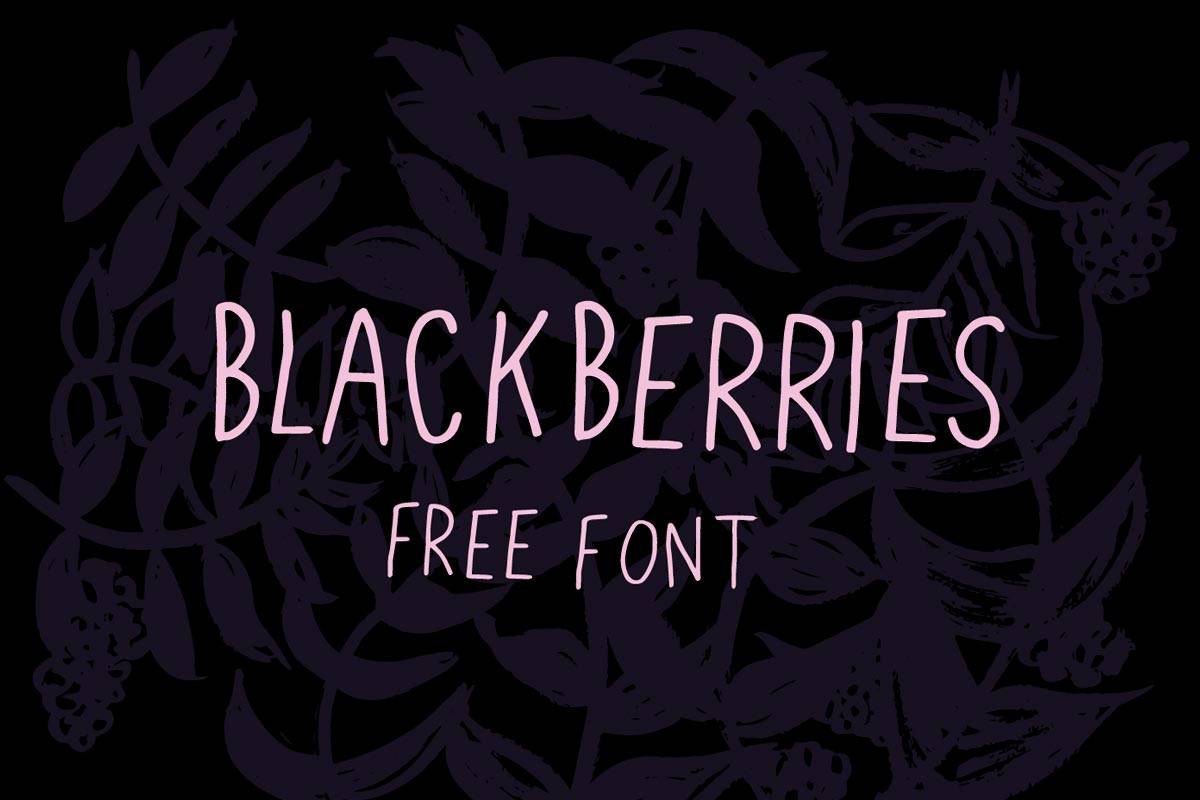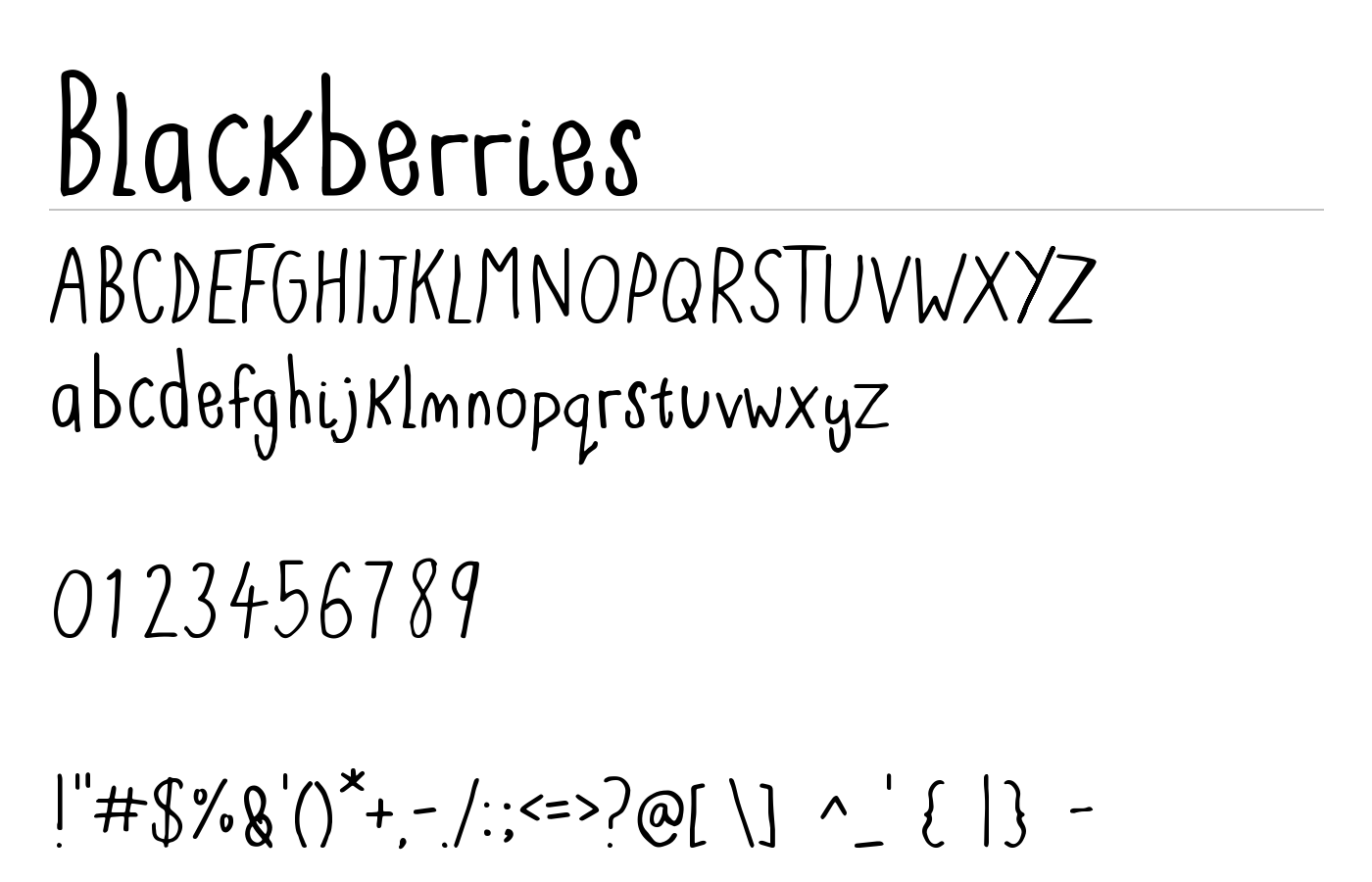
Blackberries is a playful and informal handwritten sans serif font with tall, narrow letterforms and a casual, slightly quirky charm. Its light weight and uneven stroke style give it a friendly, approachable vibe perfect for creative projects, children’s materials, or personal branding that seeks a warm, human touch. This font works best in headlines, invitations, or packaging where a unique, hand-crafted feel is desired.
Blackberries Font
About Blackberries Font